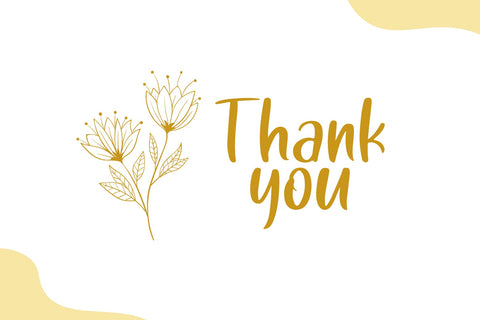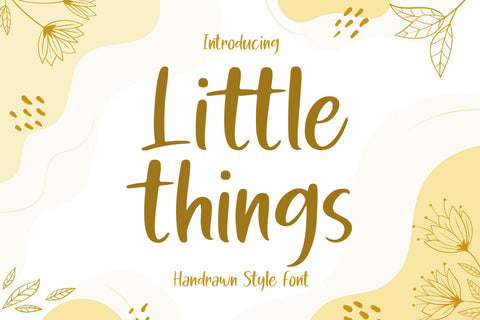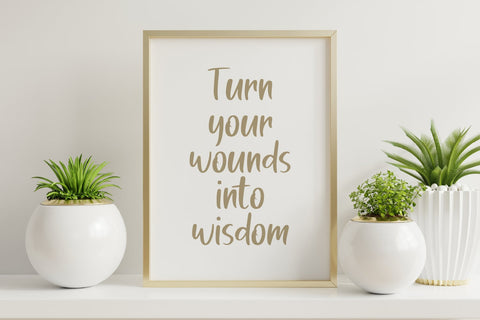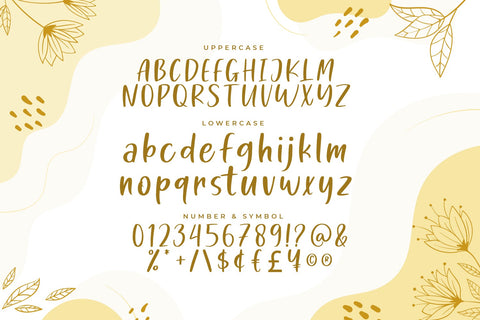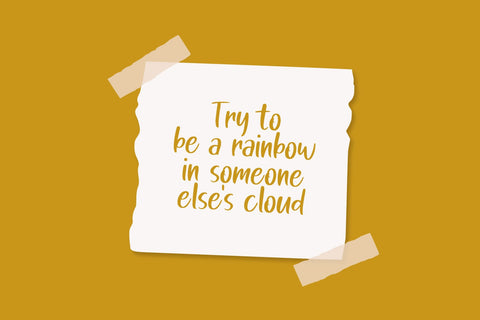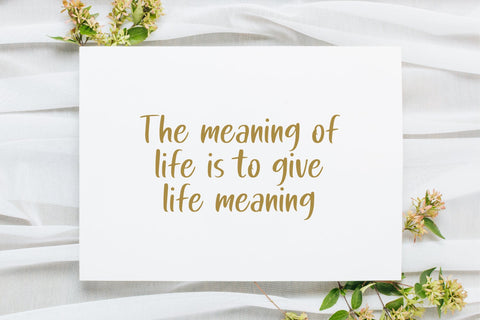
Little Things Font
Little Things Font is a font that works perfect for creating fun, hip designs that will draw attention. Great for instagram or Facebook posts, blog post headlines or product packaging, home decor,  shirt design and craft.